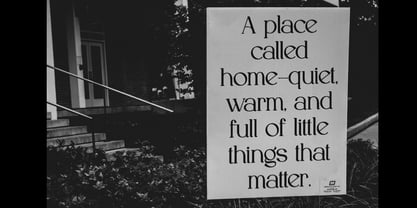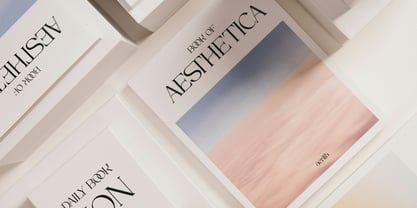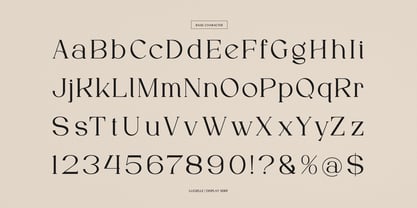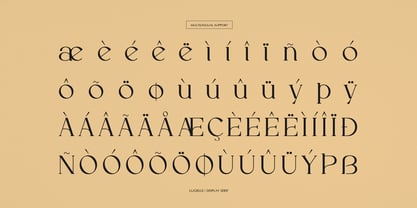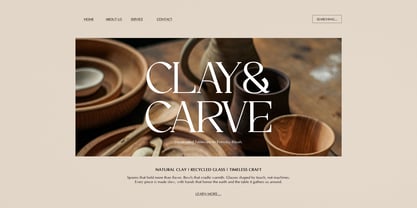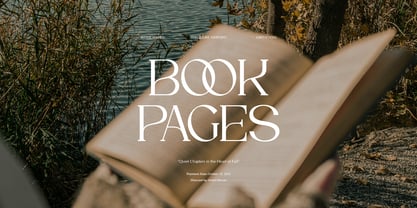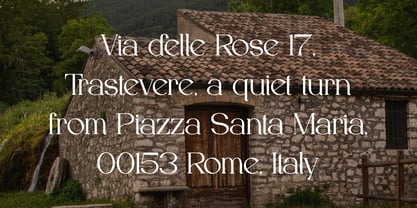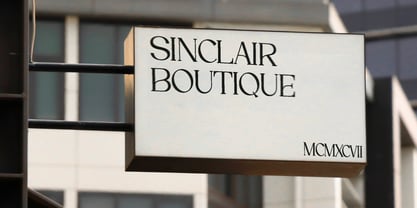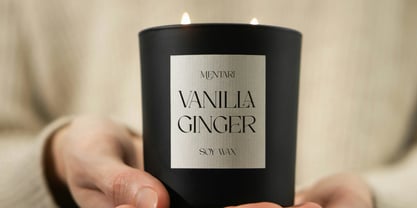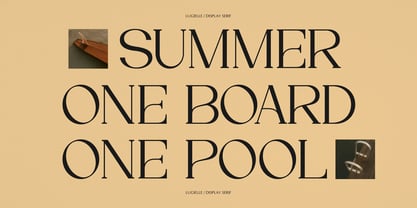
Lugielle
Lugielle | Modern Display Serif, from Gracetypestudio, suitable for any projects such as: logos, branding projects, homeware designs, product packaging, mugs, quotes, posters, shopping bags, t-shirts, book covers, name card, invitation cards, greeting cards, label, photography, watermark, special events, and all your other lovely projects that need Modern Display Serif a taste.
• Regular and Italic
• Alternate and Ligature